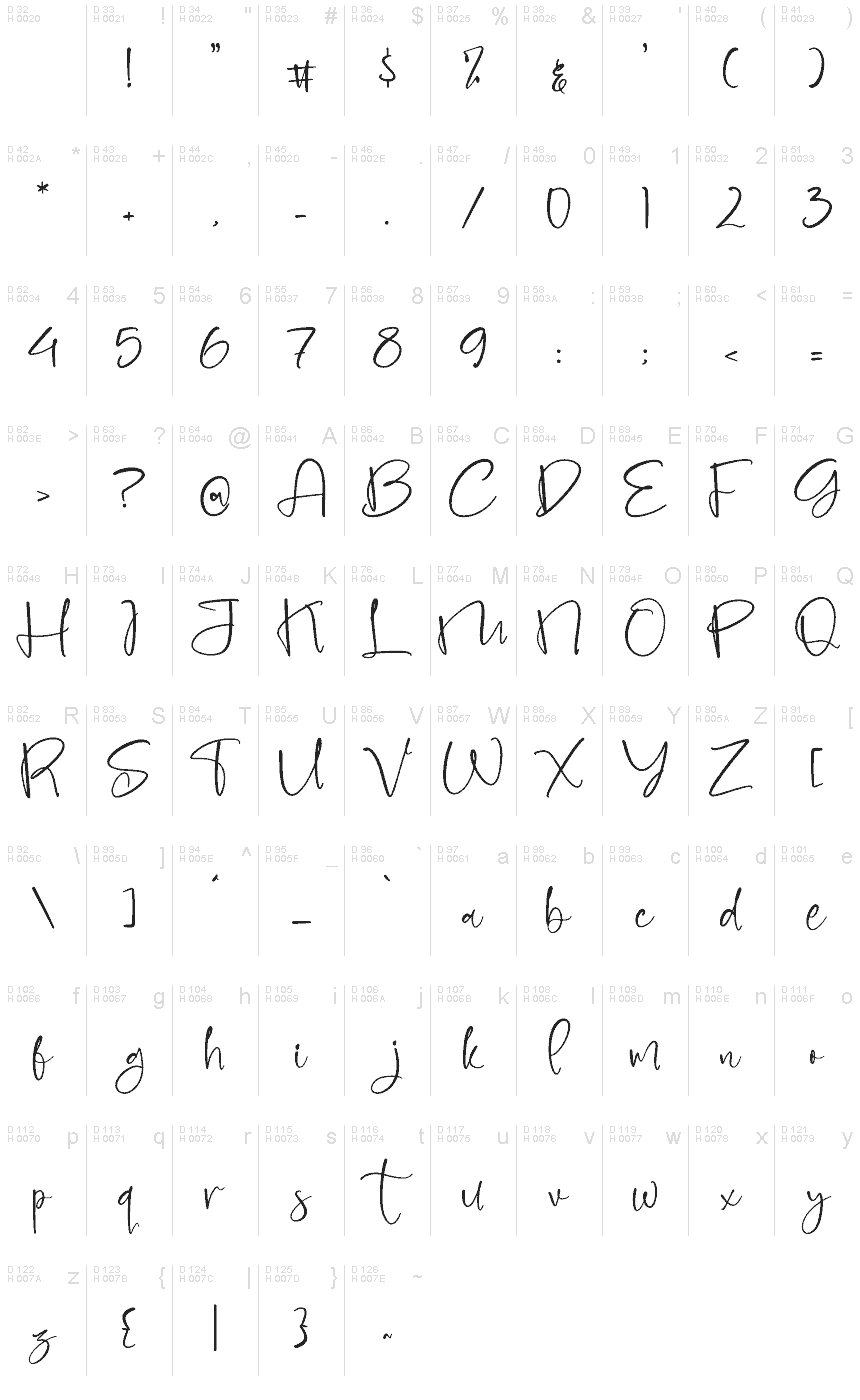
Gilconish Matter
Gilconish Matter font by Letterena Studios is a light handwritten font that exudes expressive, artistic flair. Its whimsical touch blends modern elegance with a personalized feel, making it a versatile choice for creative projects seeking authenticity and character.